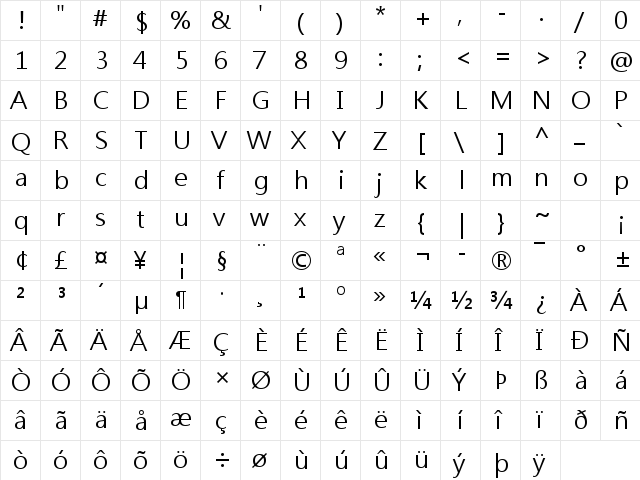
Microsoft JhengHei Regular
| Foundry | Microsoft Corporation |
| Designer | Monotype Imaging Inc. |
Design Context for Microsoft JhengHei Typeface
Microsoft JhengHei takes a measured approach to typography — its balanced proportions and neutral character make it a reliable workhorse for both digital and print work.